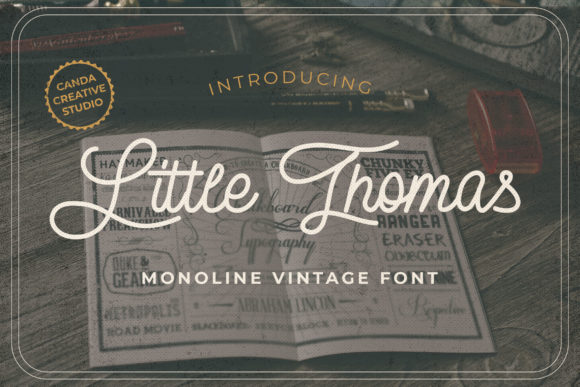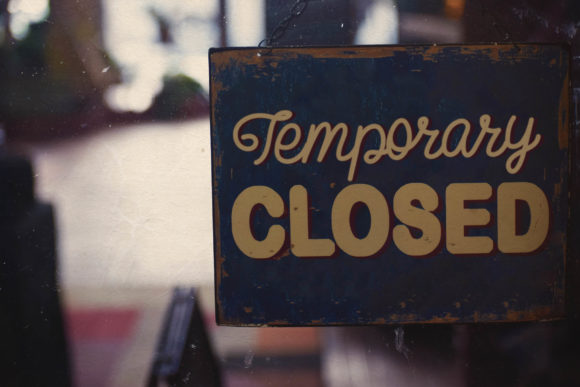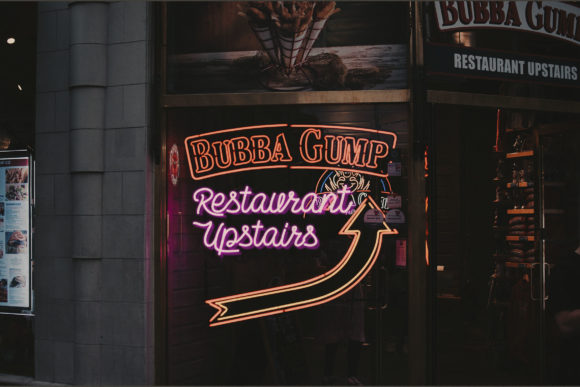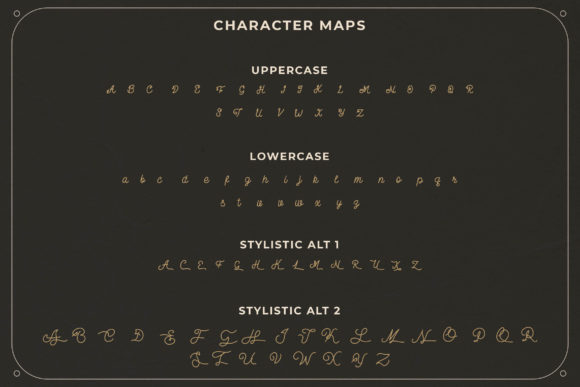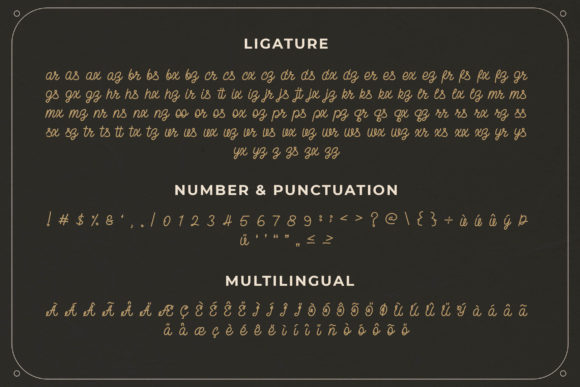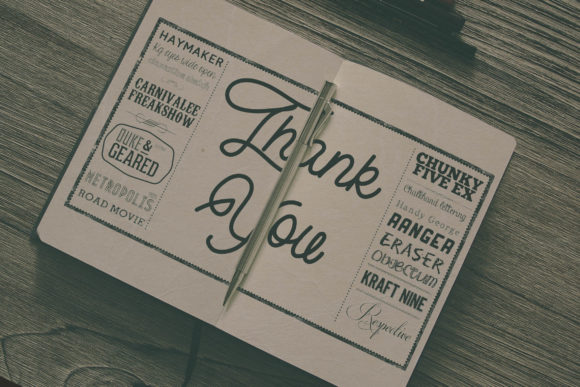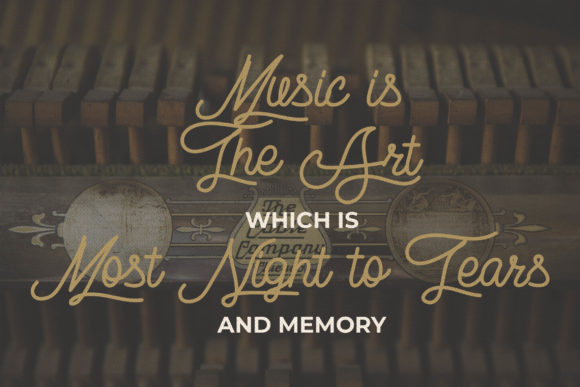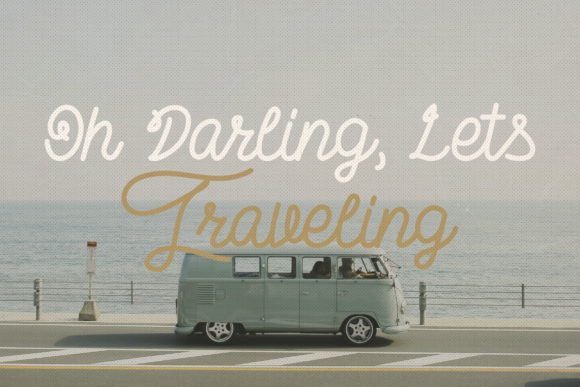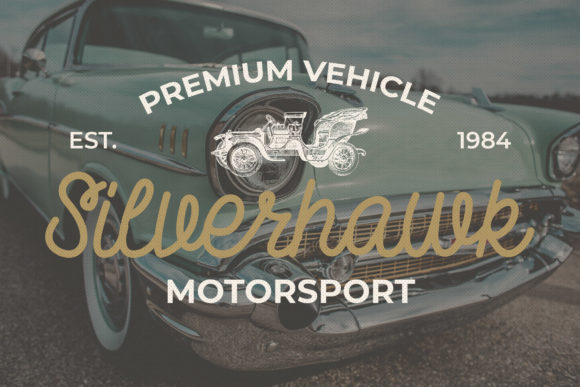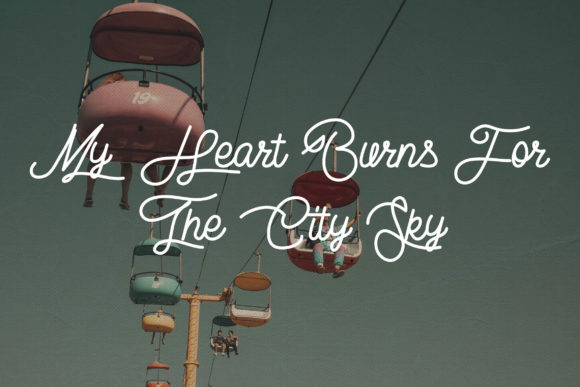
Little Thomas Font
About Little Thomas Font
Little Thomas is a magical vintage handwritten font carefully created with a touch of elegance. Use it to add that special retro touch to any design idea you can think of!